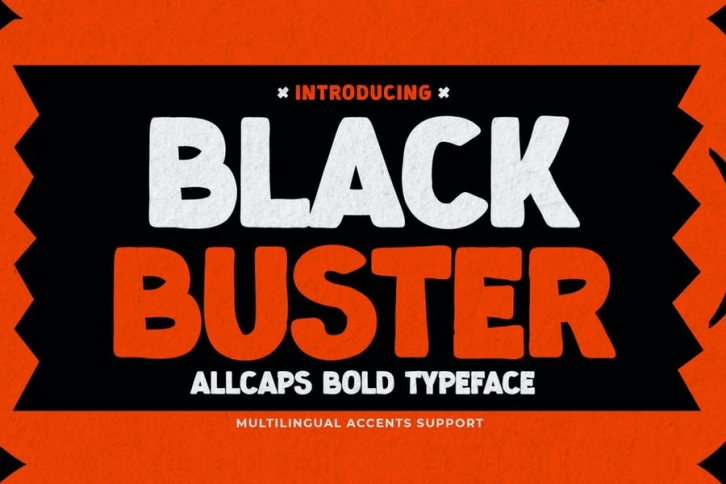
Hello Everyone, introduce our new product Blackbuster - All Caps Bold Typeface Display, inspired by the title of the sports poster and We make it very energetically. Blackbuster font with strong and challenging nuances. very suitable for the title, typography, Poster, magazines, brochures, packaging,Websites and much more for your design needs, making your designs more modern and professional This handmade font will make your design has a beautiful natural touch for each details. It is perfect for any design project as Invitation,logo, book cover, craft or any design purposes.